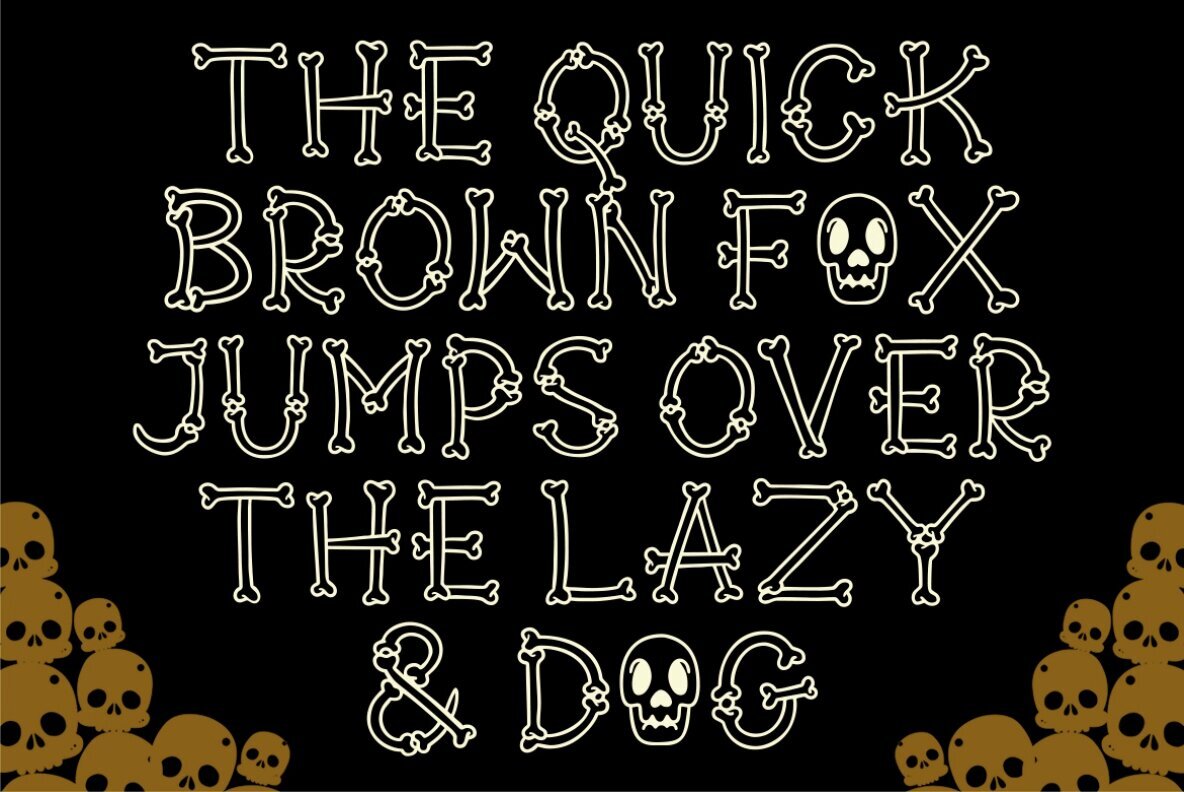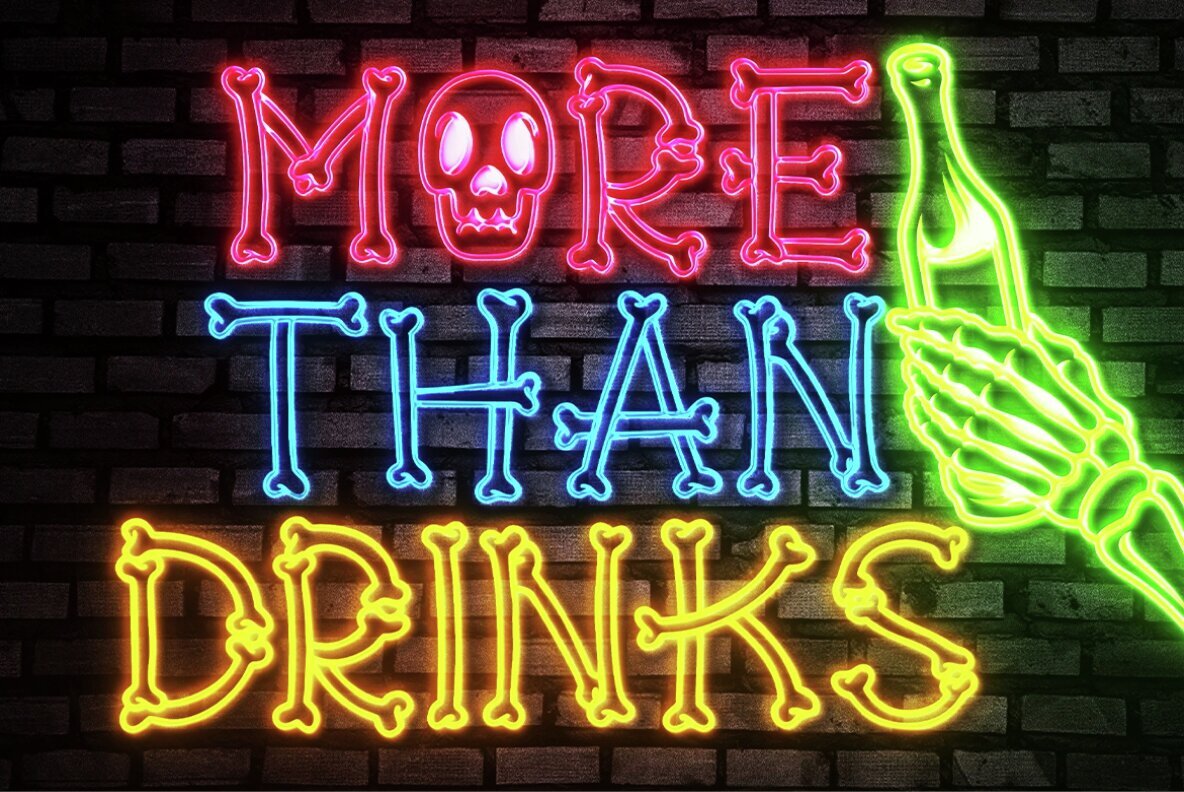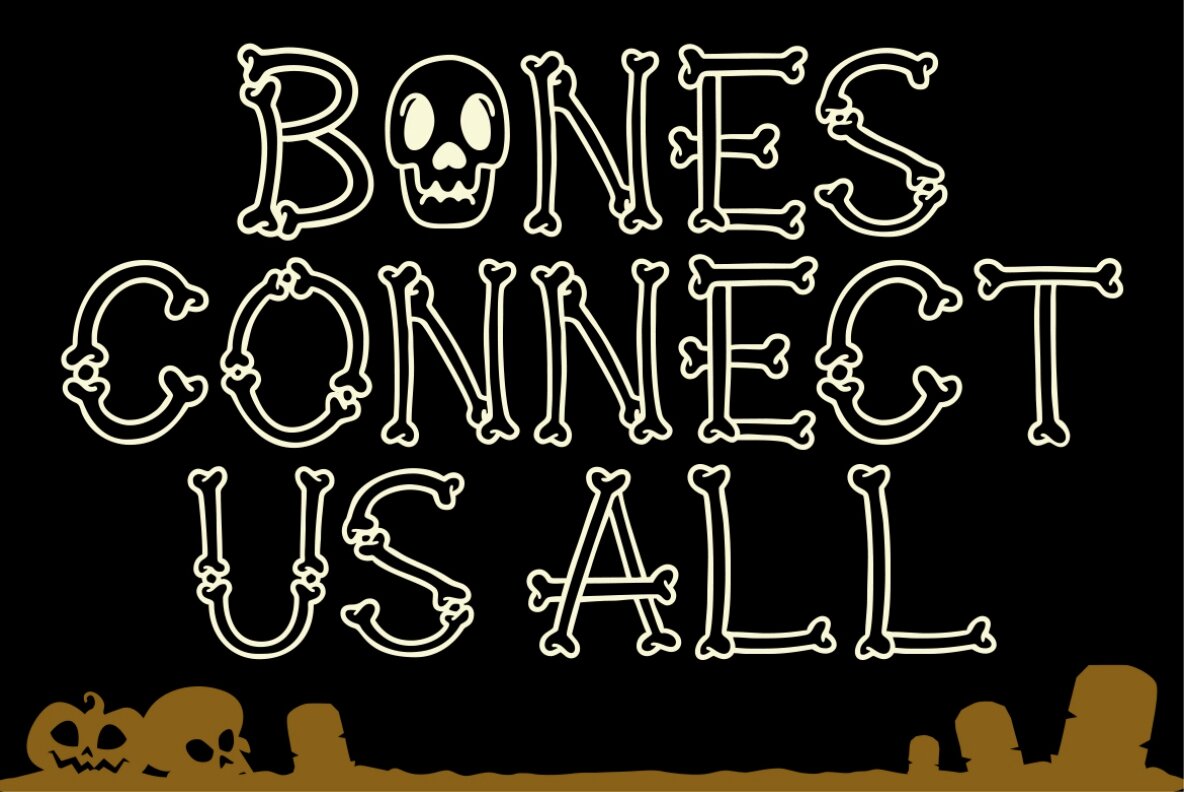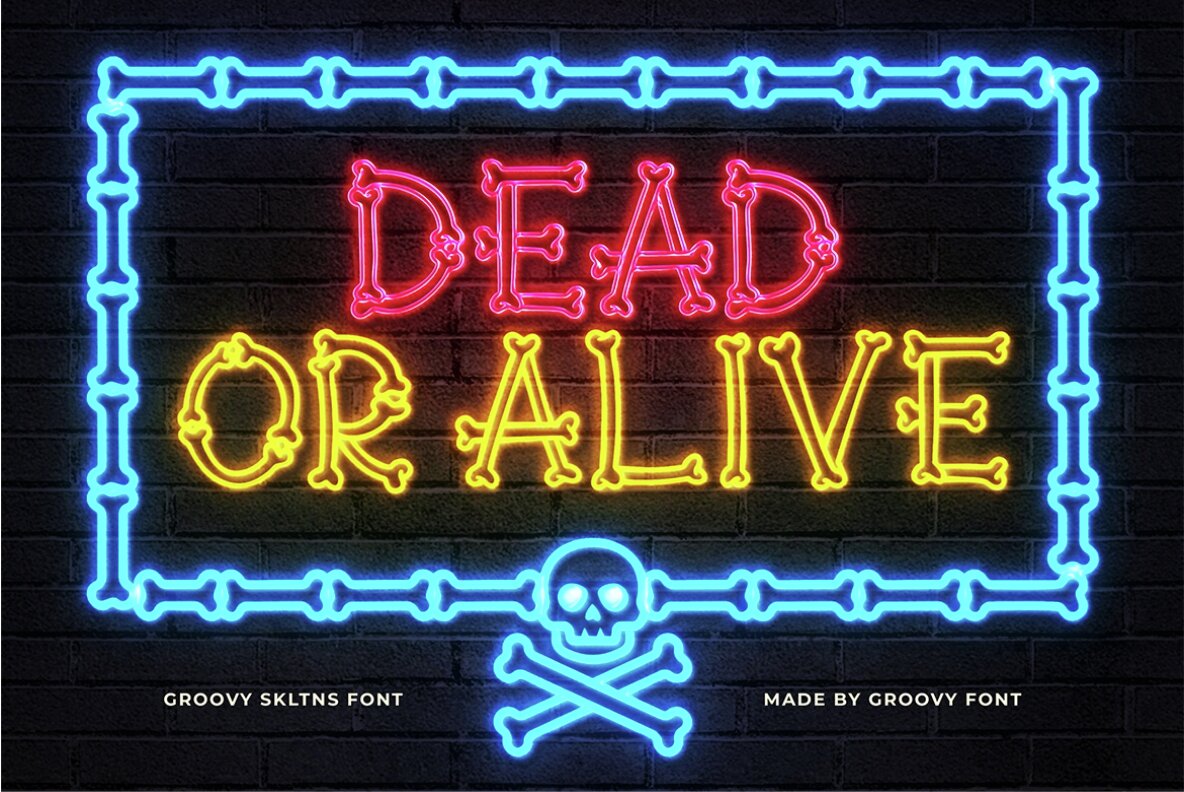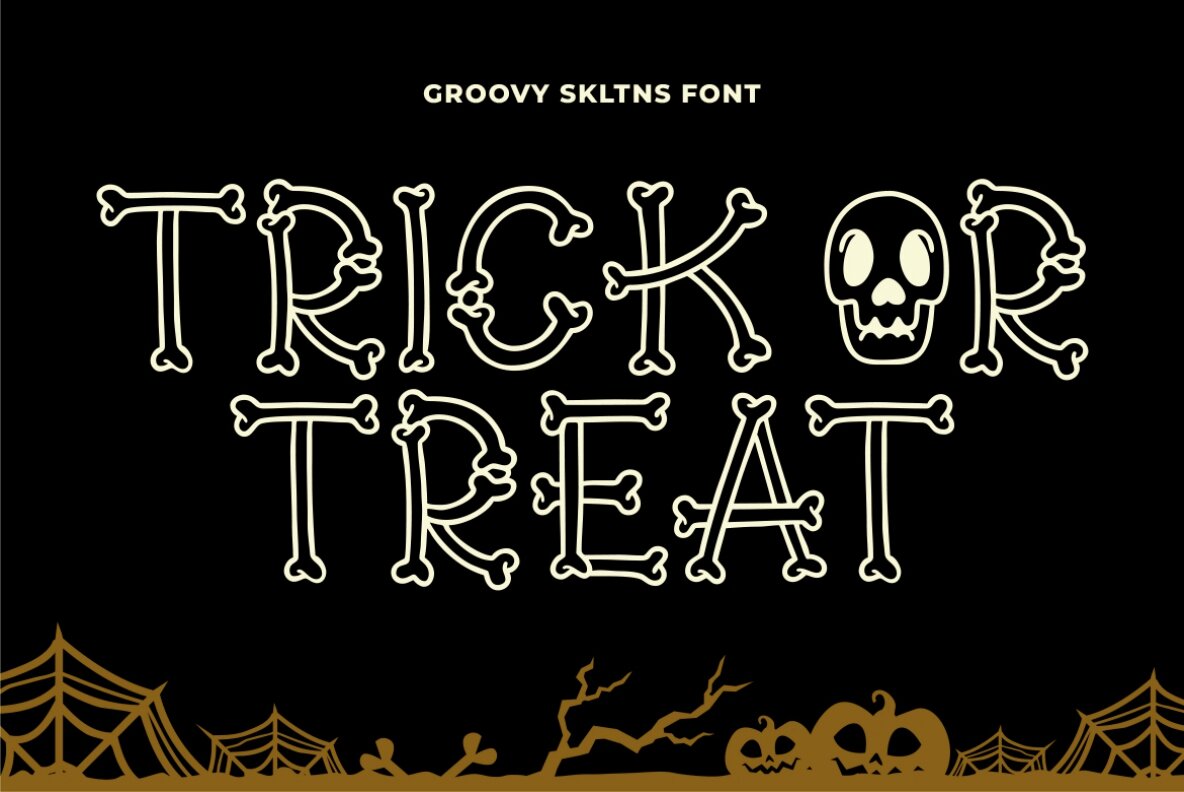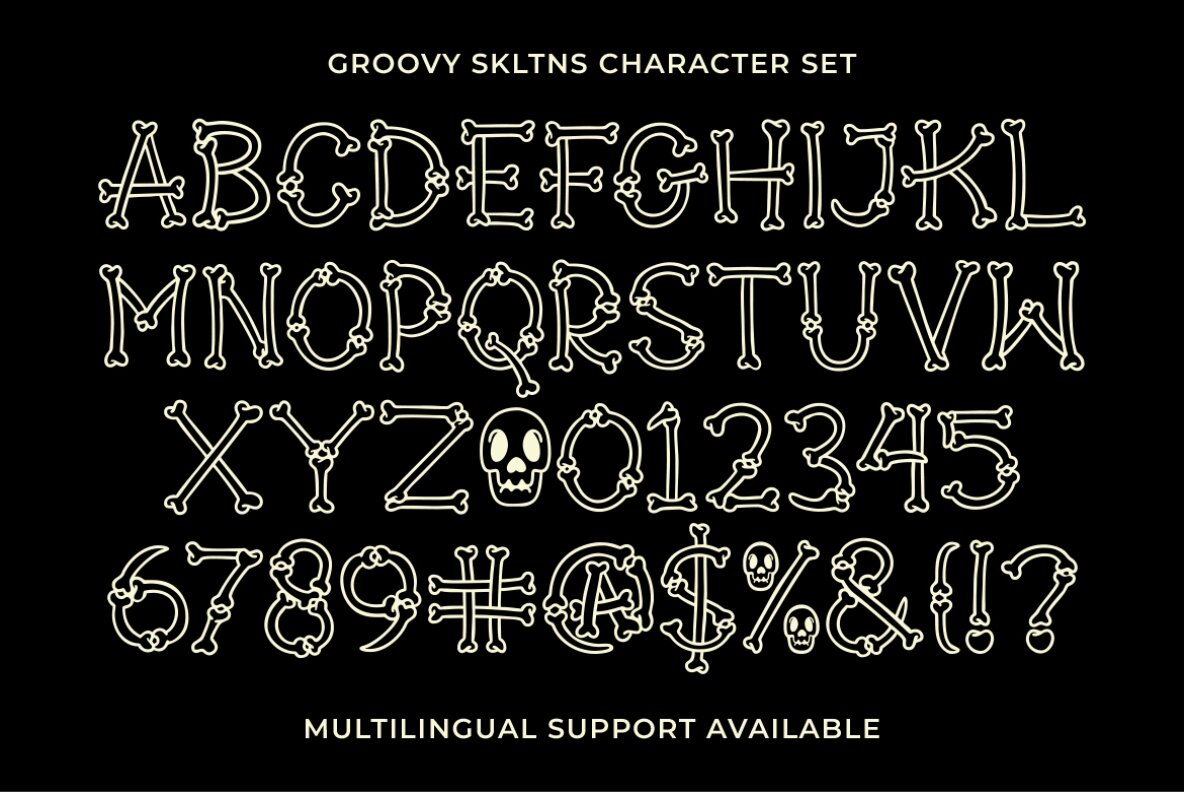
Groovy Skltns Font
Groovy Skltns
Groovy Skltns is a distinctive bone-shaped typeface that ingeniously utilizes bone structures to craft each letter. This font offers a spooky aesthetic, perfect for those looking to add a hauntingly unique flair to their text or design projects. Its memorable style is ideal for Halloween-themed graphics, party invitations, or any creative work that requires a touch of the macabre.
Embrace the unusual design of Groovy Skltns to make your compositions stand out. Whether used for posters, digital designs, or branding projects, this typeface provides a remarkable and eerie atmosphere that captures attention and creates an unforgettable experience.